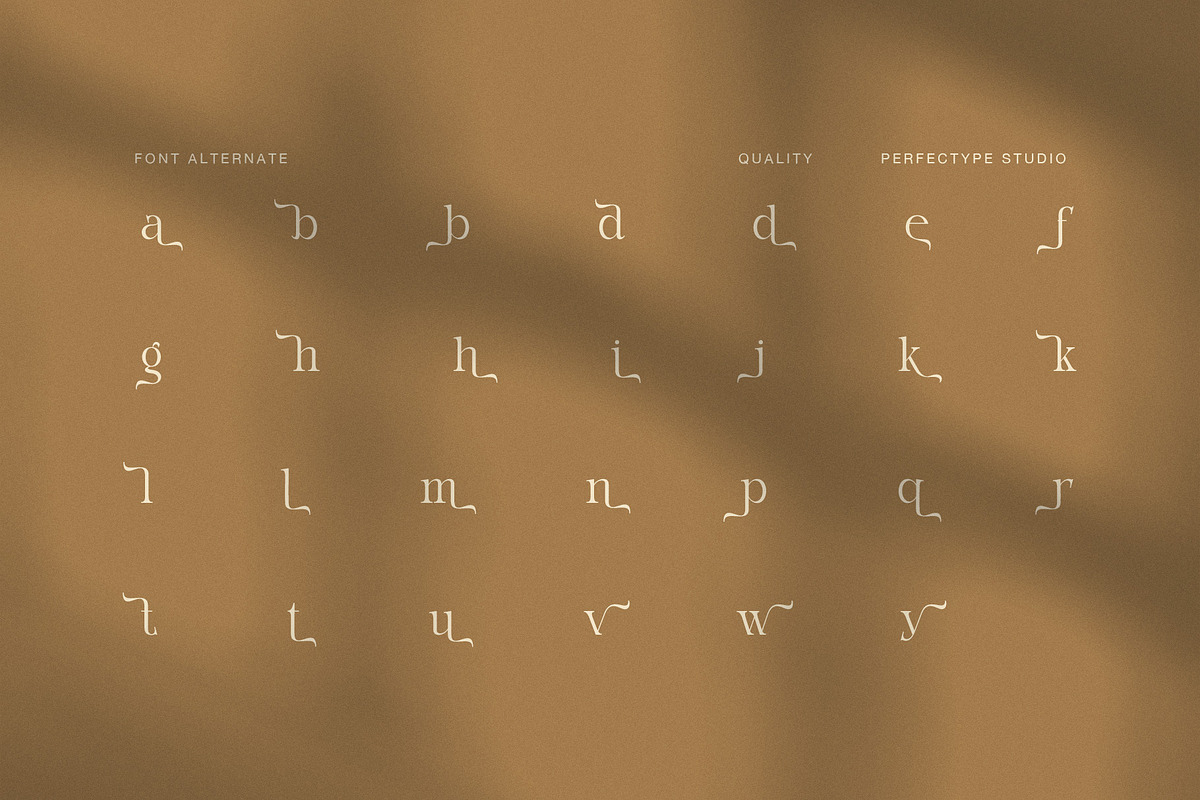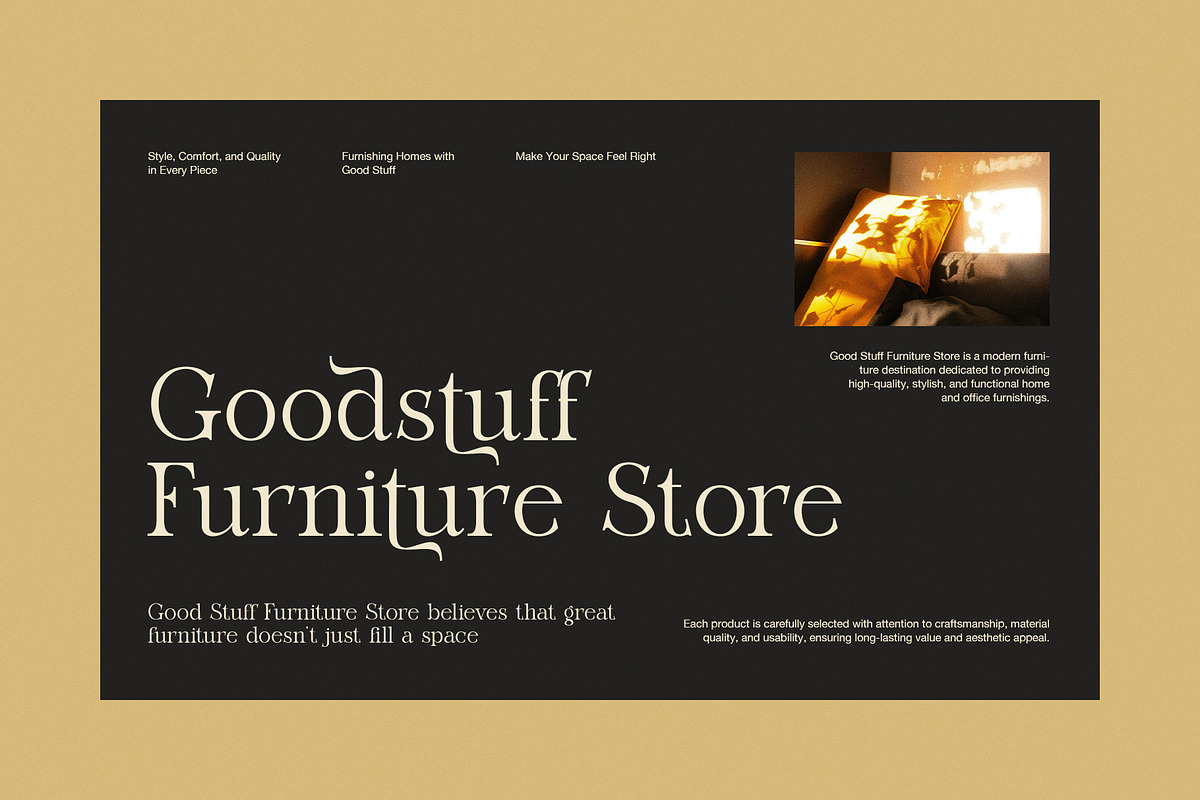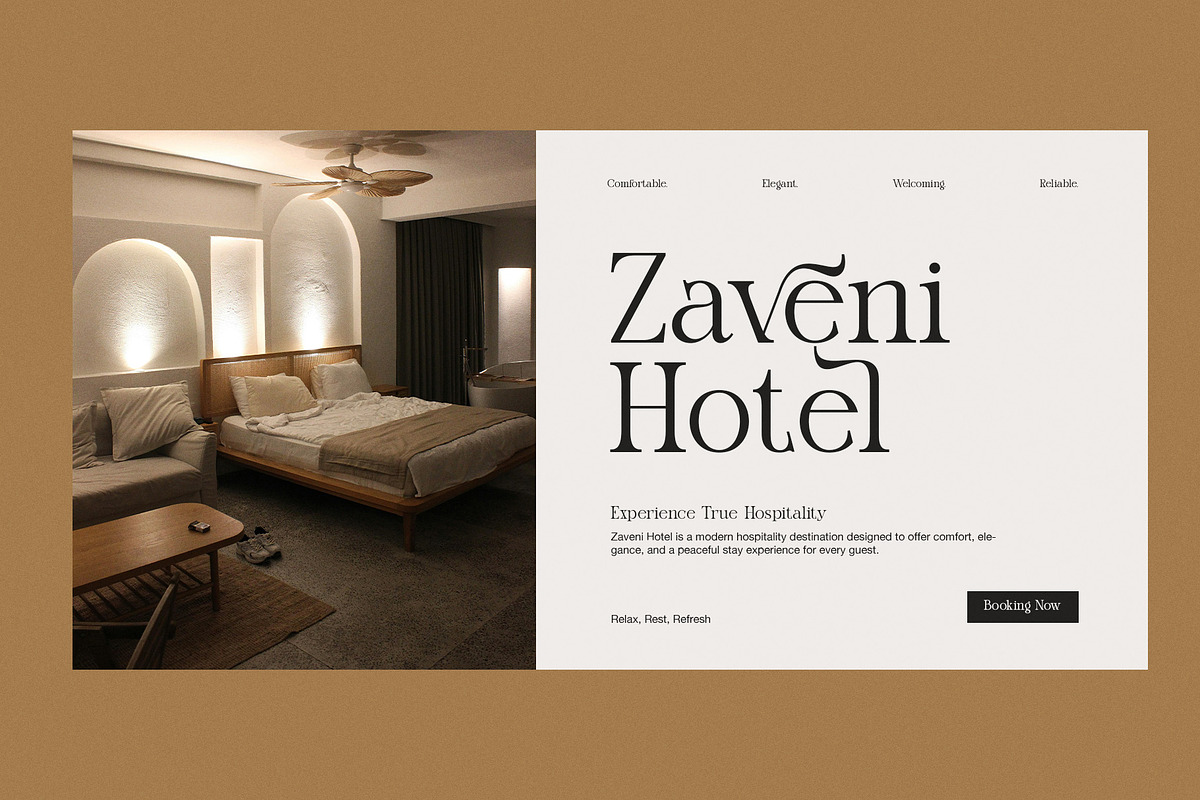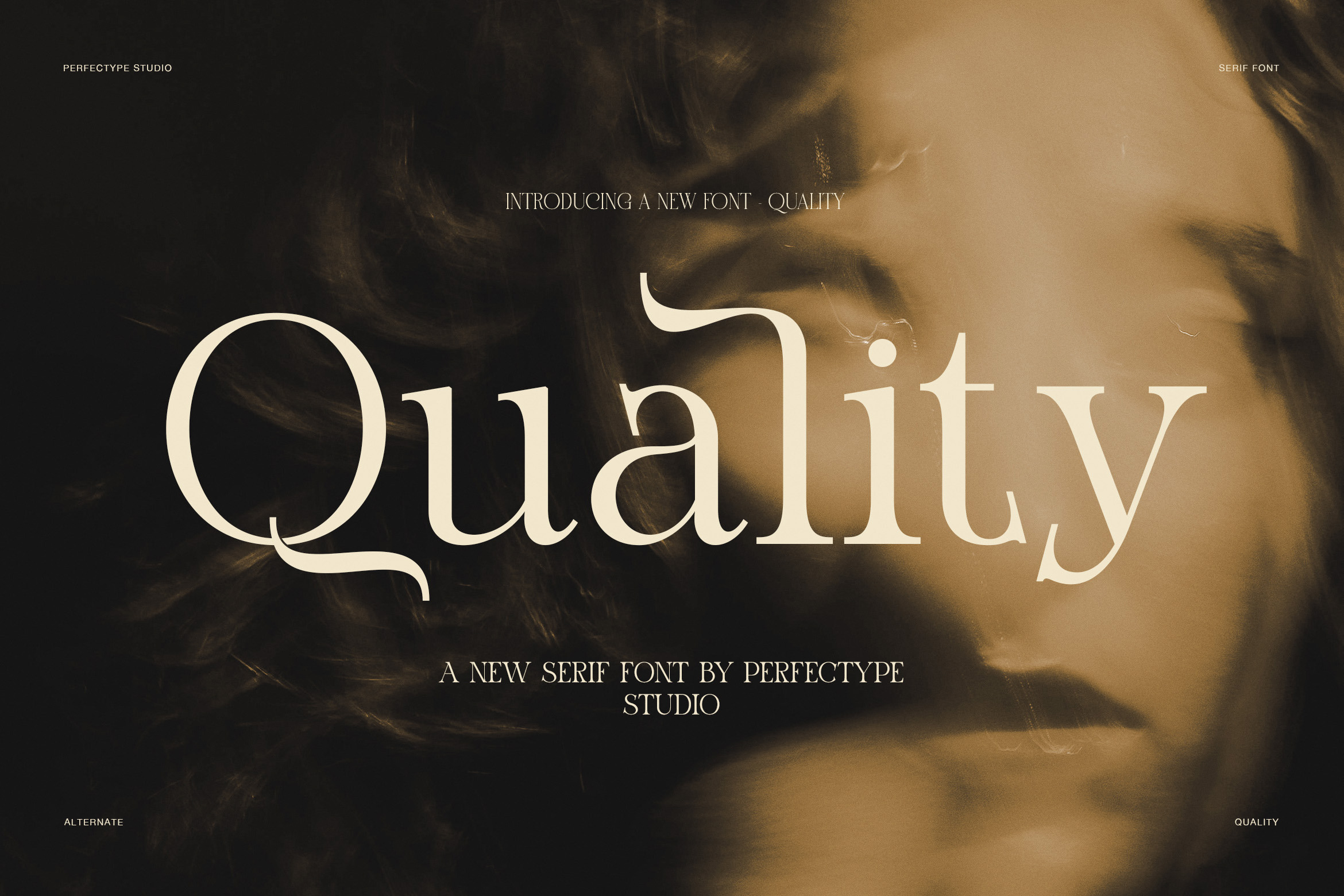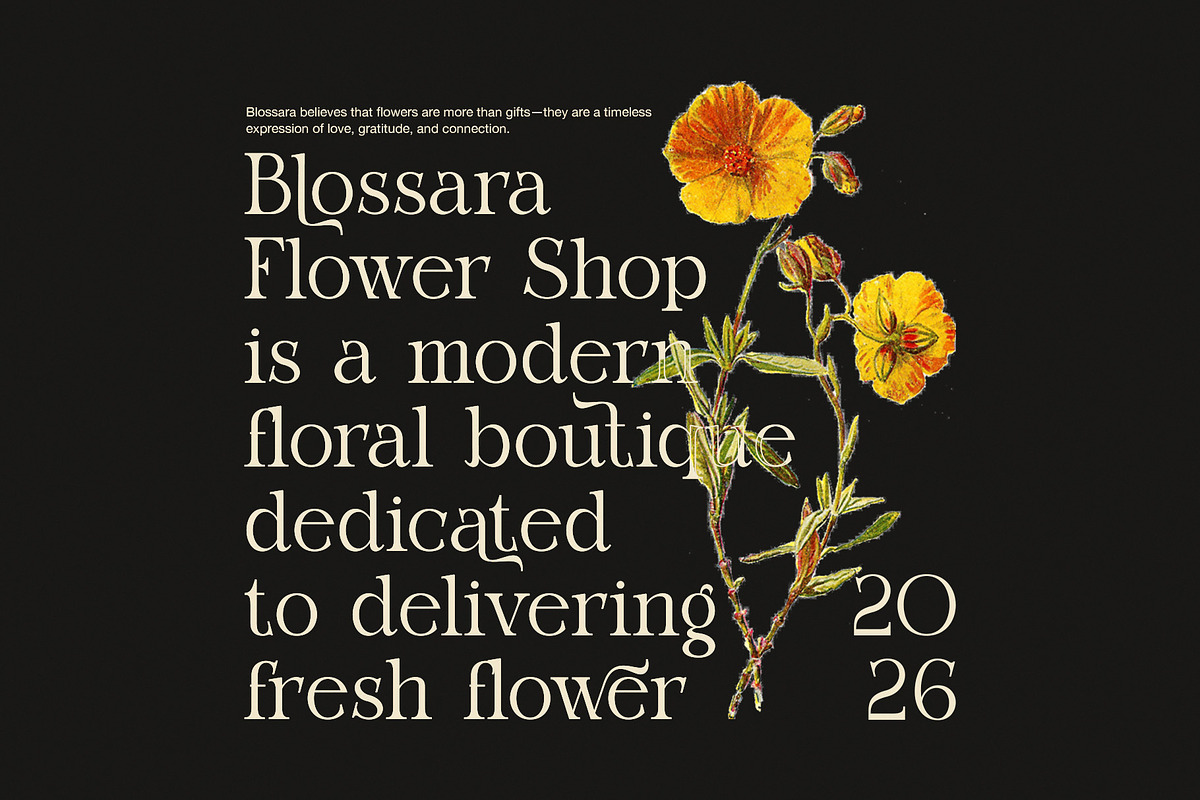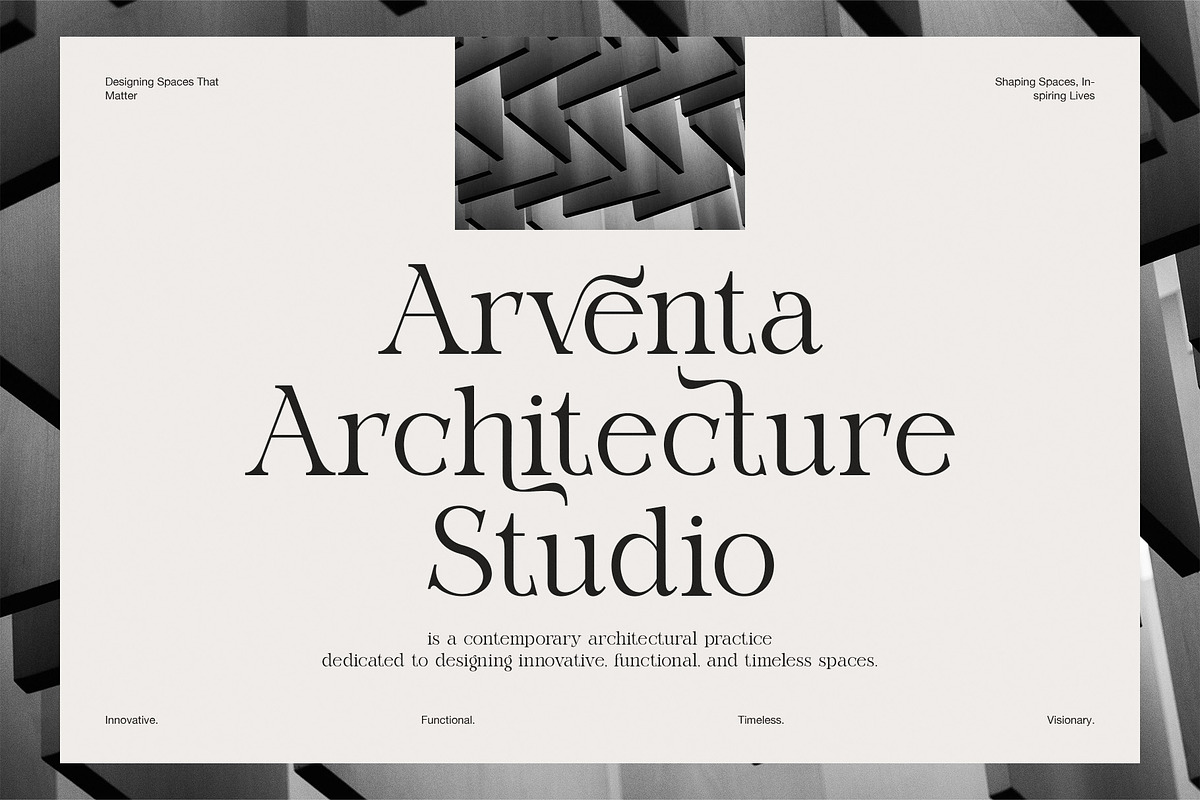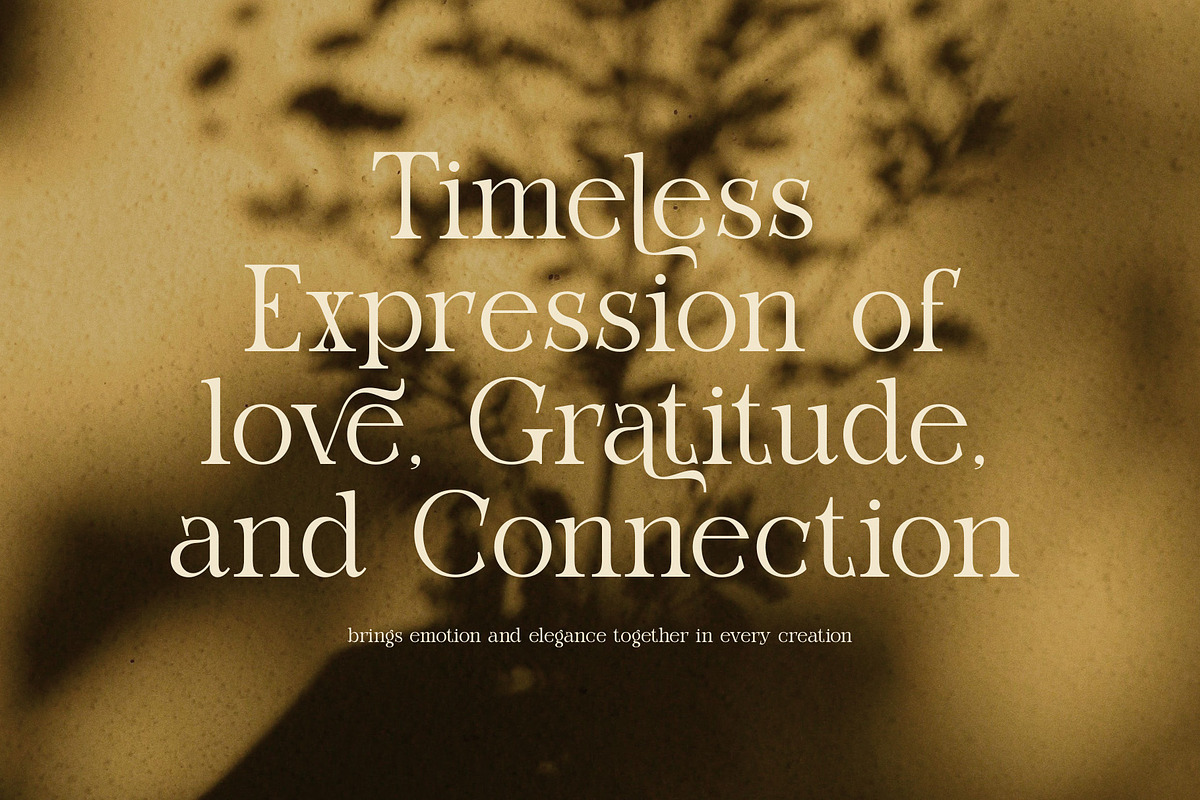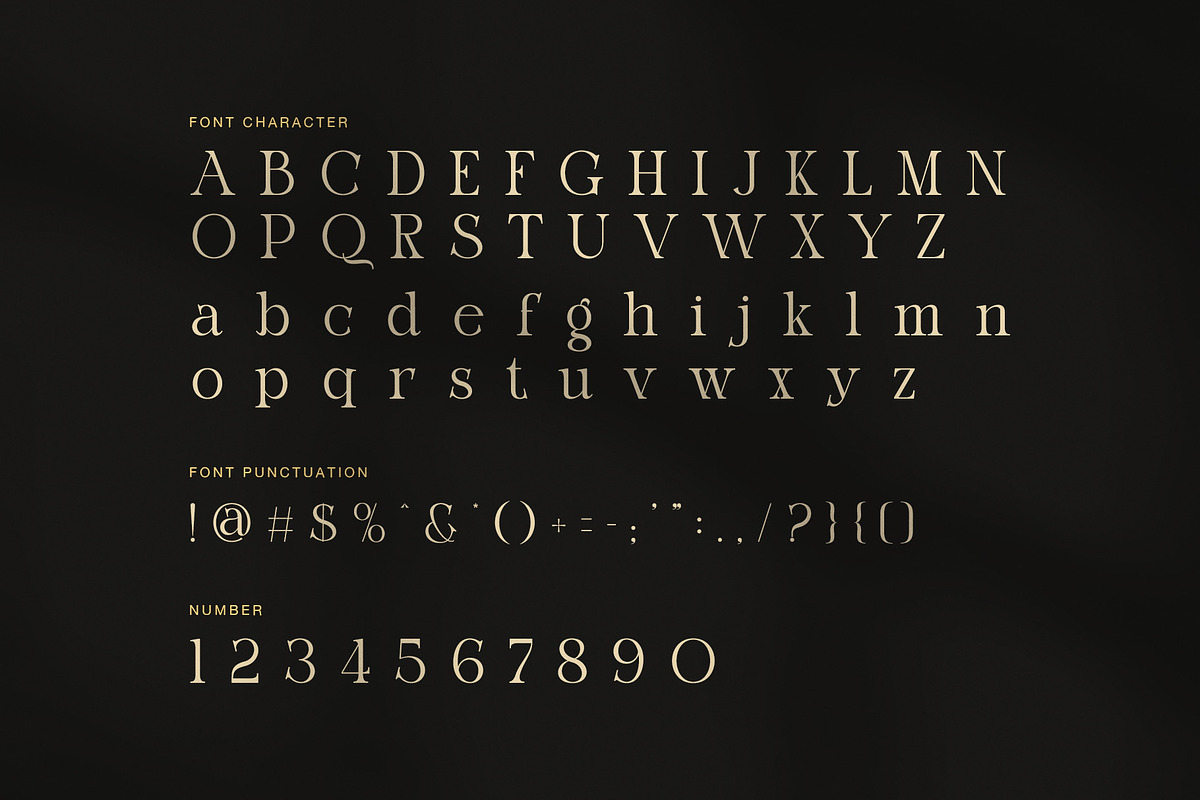
Quality Elegant Serif Font
Quality is an elegant serif font designed to deliver a refined, expressive, and premium visual identity. Moreover, it blends modern luxury with classic serif structure, creating a timeless look that works across many design styles. As a result, this font feels both artistic and highly professional.
In addition, Quality features strong contrast between thick and thin strokes. Because of this, it gives each letter a graceful rhythm and high readability. Meanwhile, the smooth curves and sharp terminals create a balanced visual flow that enhances any typographic composition. Therefore, it is ideal for designers who want elegance without losing clarity.
Furthermore, this serif font includes a rich set of alternates and ligatures. Consequently, users can build unique lettering styles that feel custom-made. At the same time, it helps elevate branding projects with a strong sense of personality. In addition, the font performs very well in large display sizes, making it perfect for headlines and logos.
Quality is highly versatile. For example, it works well in fashion branding, editorial layouts, wedding invitations, packaging design, and luxury advertising. Moreover, it adapts easily to digital and print environments. Therefore, designers can use it confidently in both modern and classic compositions.
Key features include:
Elegant high-contrast serif style
Stylish ligatures and alternates
Clean and modern letterforms
Strong readability with artistic detail
Perfect for luxury branding and editorial design
Multi-purpose use for print and digital projects
Furthermore, Quality is designed to support emotional storytelling through typography. Because of its refined design, it brings sophistication and warmth to every project. Meanwhile, its balanced proportions ensure consistency and harmony in long or short text.
In addition, the font enhances visual hierarchy in layouts, helping key messages stand out clearly. Therefore, it is a strong choice for designers who aim to create impactful and elegant compositions. Finally, Quality is not just a typeface, but a design tool that elevates creativity and strengthens brand identity.